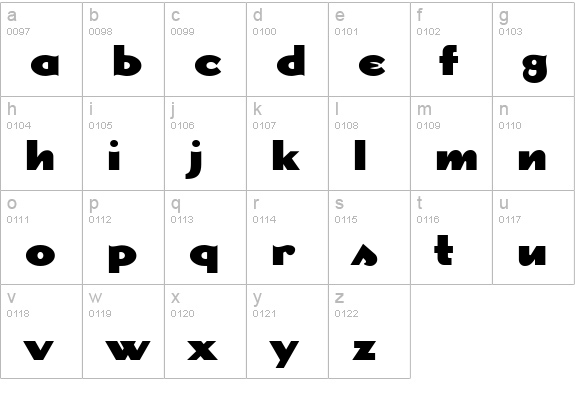
DogmaBlack Regular is the standard, neutral variant in the DogmaBlack typeface family \xE2\x80\x94 well suited to general body text, paragraphs, and standard typographic work.
DogmaBlack Regular font is a sleek and modern typeface that exudes sophistication and style. Its clean lines and bold strokes make it perfect for creating eye-catching designs that demand attention. Whether you're working on a logo, branding materials, or a website, DogmaBlack Regular is sure to make a statement. What's even better is that DogmaBlack Regular font is completely free to download at FontsMarket.com. This means you can elevate your design projects without having to worry about any additional costs. Don't miss out on the opportunity to add this stunning font to your collection and take your projects to the next level. Download DogmaBlack Regular font today and let your creativity shine!